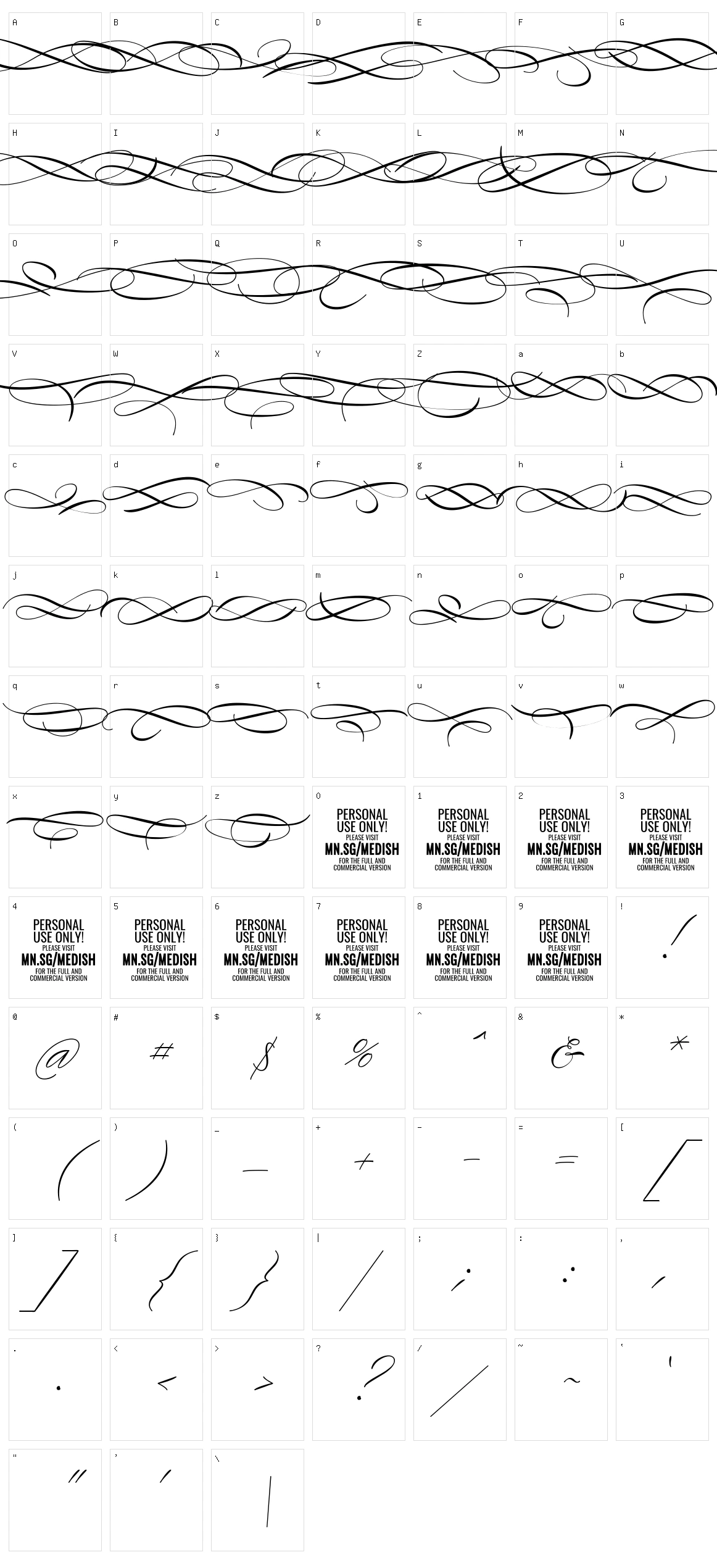
Medish Script is a classic handwritten script.
Created by Måns Grebäck during 2018, this high-quality typeface has a genuine style based on antique lettering documents.
It comes with an additional font, containing more than fifty decorative elements to be used with or without the writing.
The font is multilingual; it supports hundred of languages, and got all necessary punctuation.